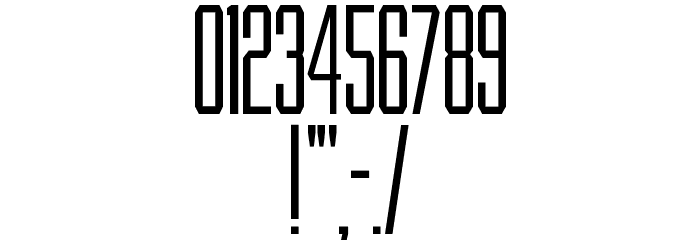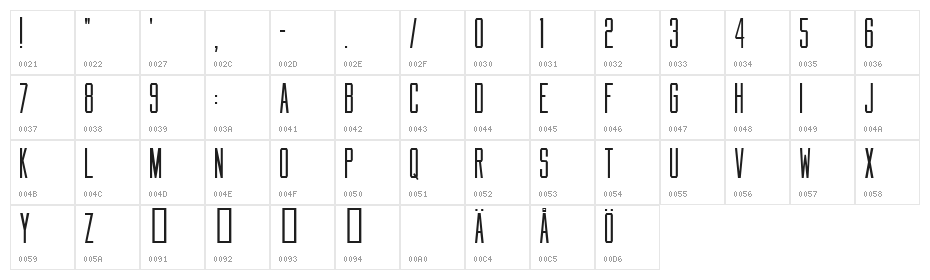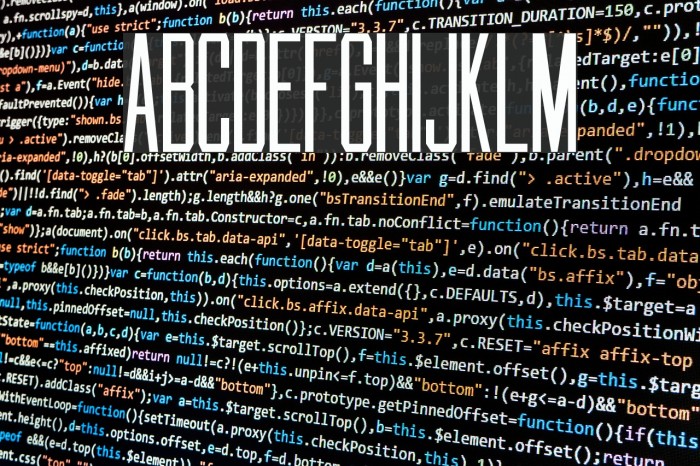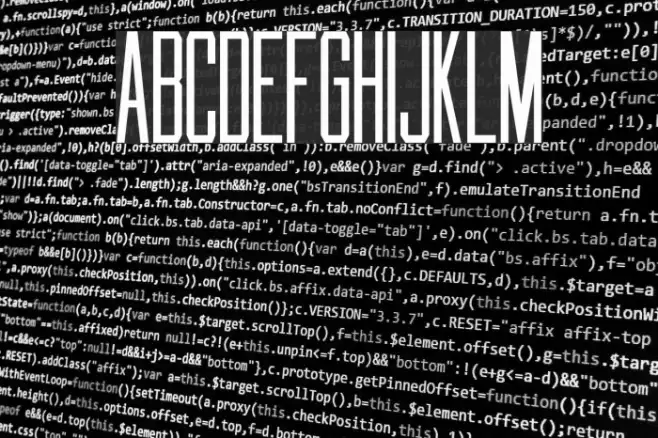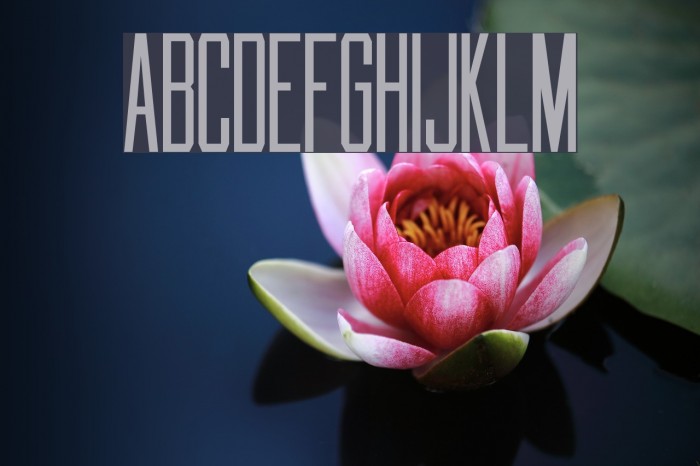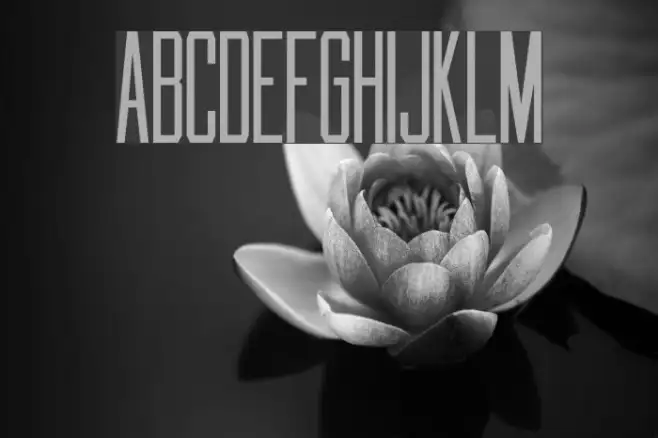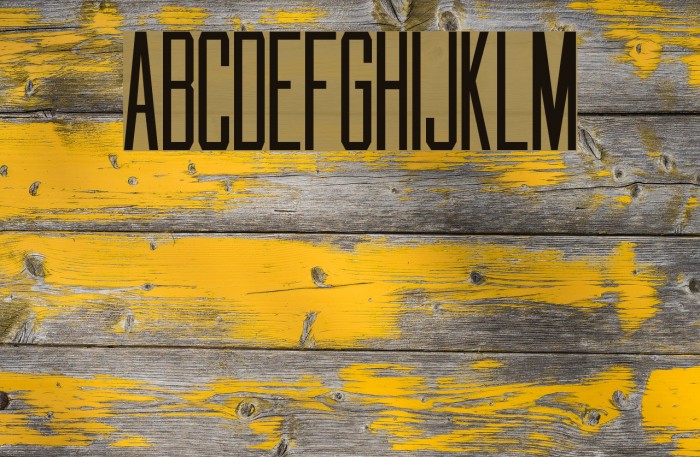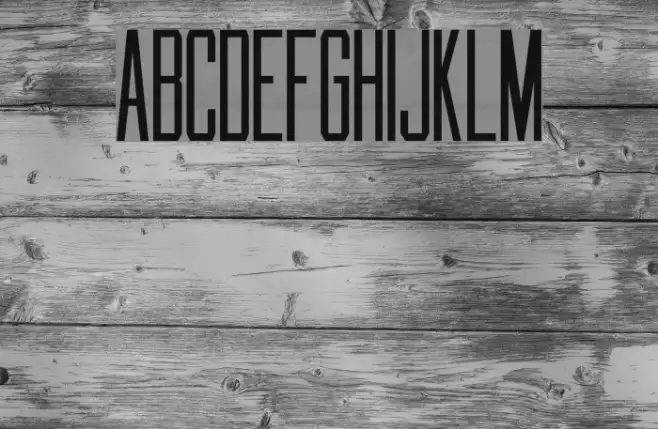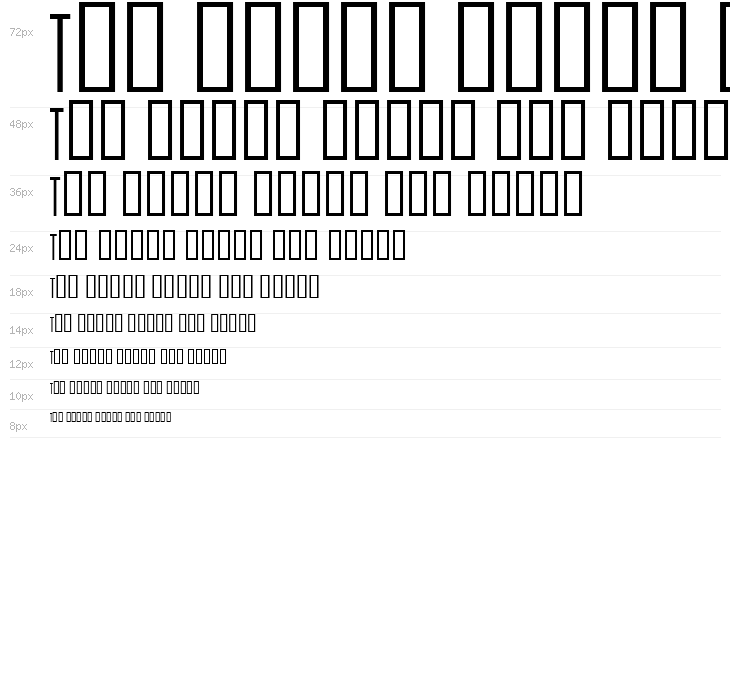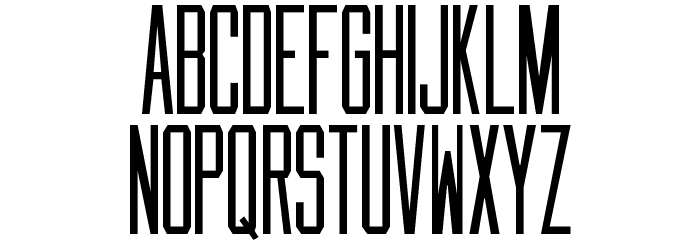
Movies Font
Movies Description
This font features a tall and narrow design, characterized by its condensed and elongated letterforms. The uppercase letters are particularly striking, with a uniform height and consistent stroke width that gives the font a sleek and modern appearance. The numerals and special characters maintain this aesthetic, ensuring a cohesive look across all characters. The font's clean lines and lack of serifs contribute to its contemporary style, making it suitable for a variety of design applications where a bold and impactful statement is desired.
| Proposed Projects | Ideal for movie posters, headlines, branding, and any project requiring a strong visual impact. |